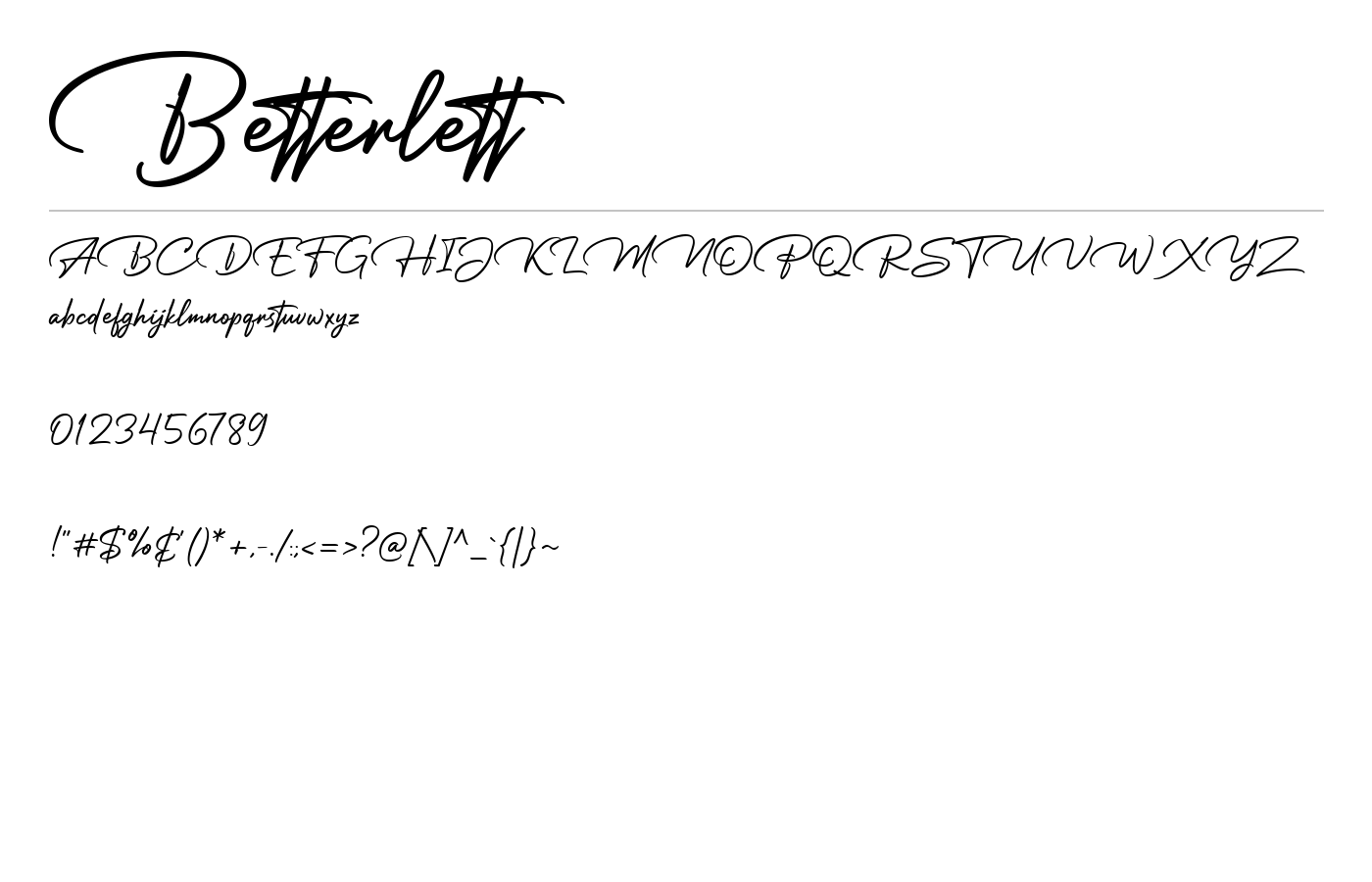
Betterlett is a stylish, modern script font featuring elegant, flowing strokes with a natural, handwritten feel. Its light, airy letterforms with subtle variations in thickness make it perfect for sophisticated branding, invitations, and creative projects that desire a personal yet polished touch. This font works beautifully in headline and logo designs where a refined and contemporary aesthetic is needed.
Betterlett Font
About Betterlett Font
| Designer | Yusuf Niki Syahroni |